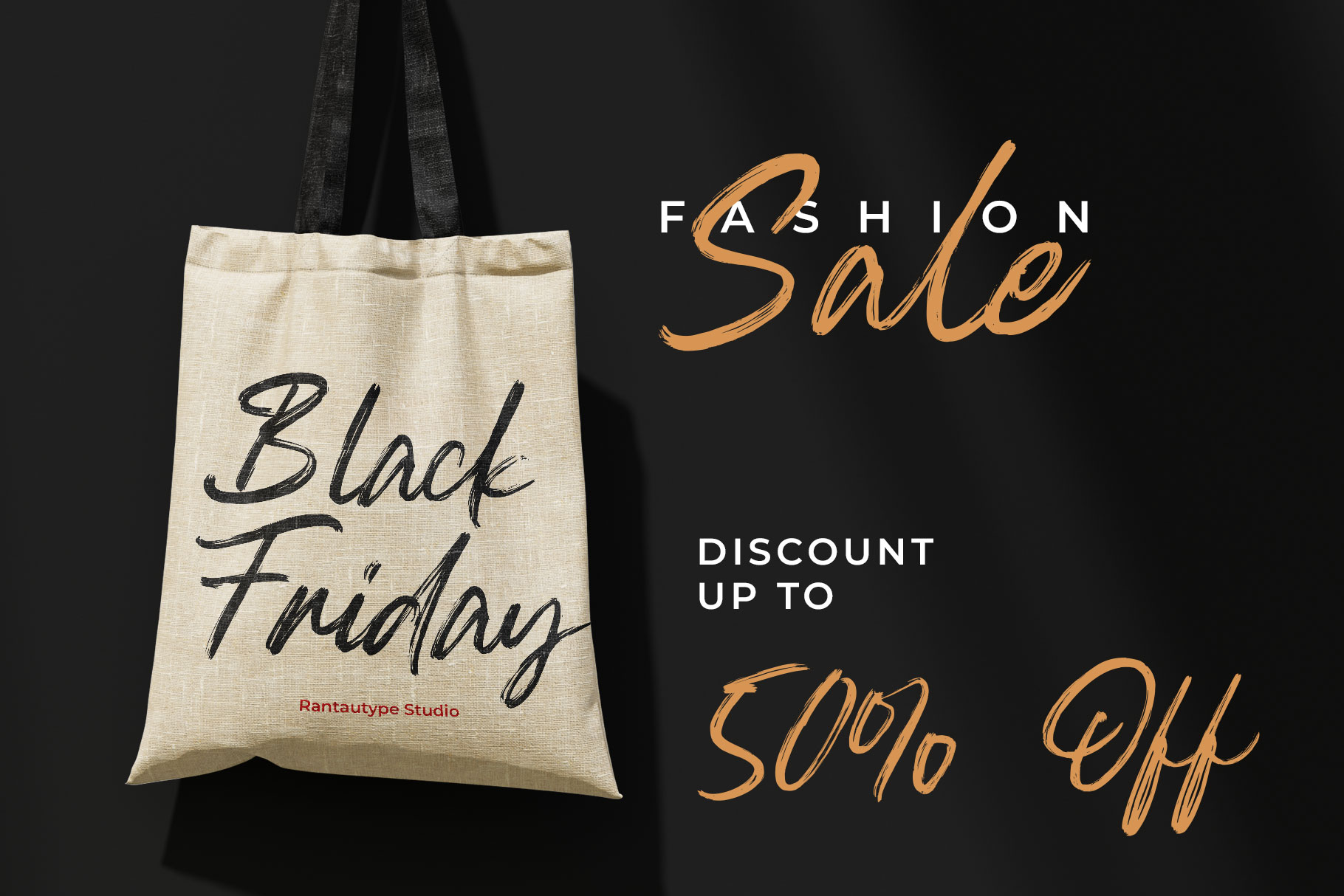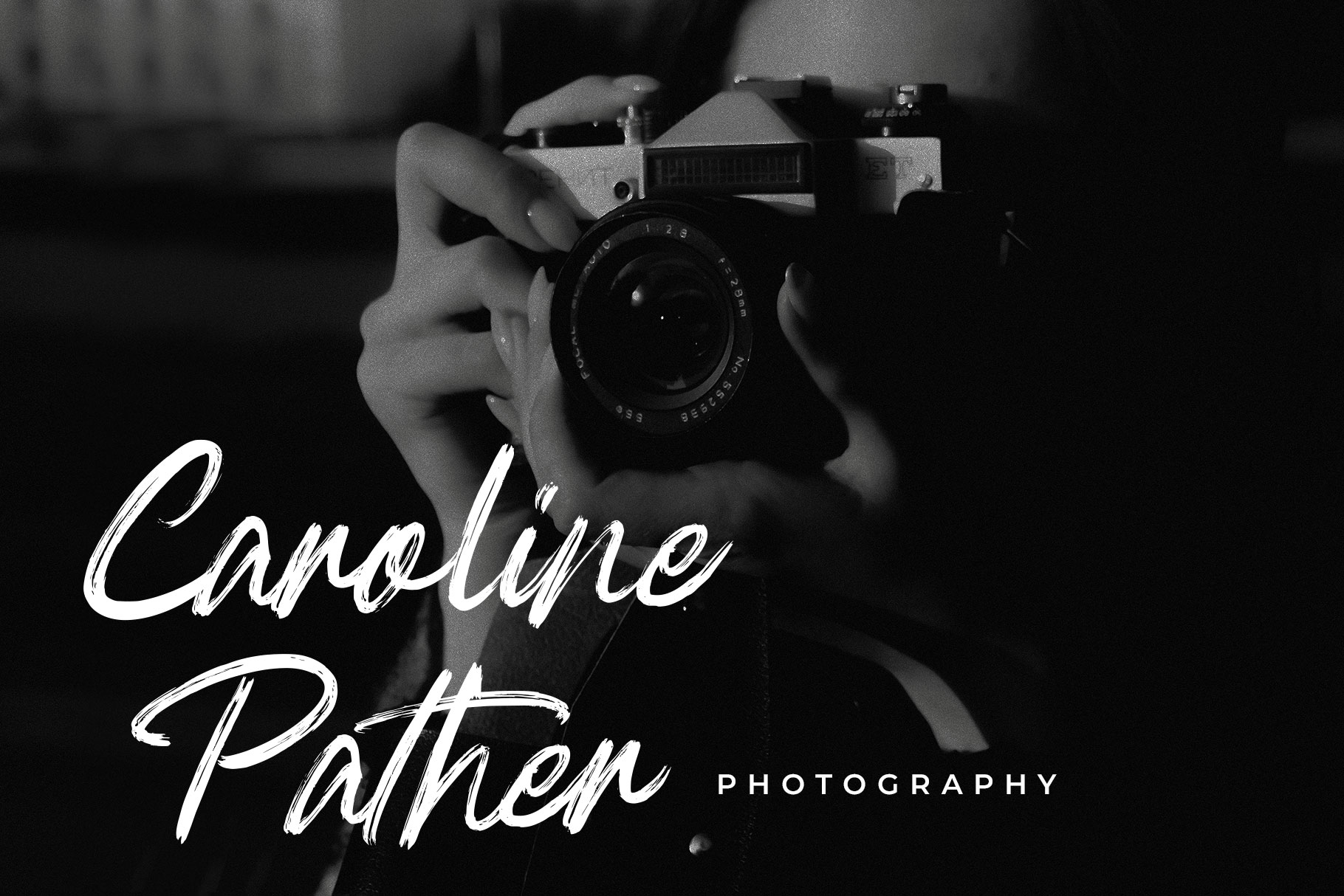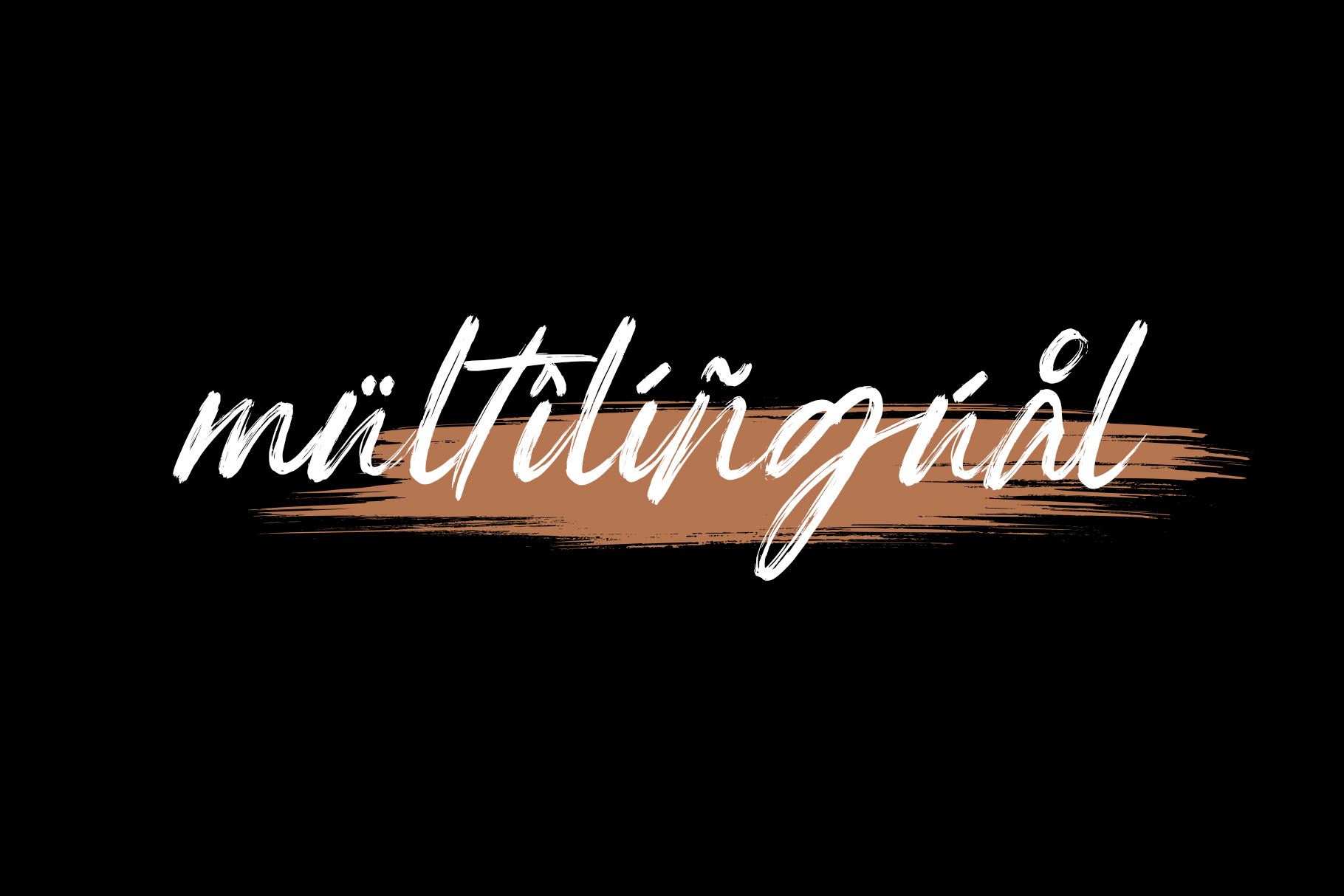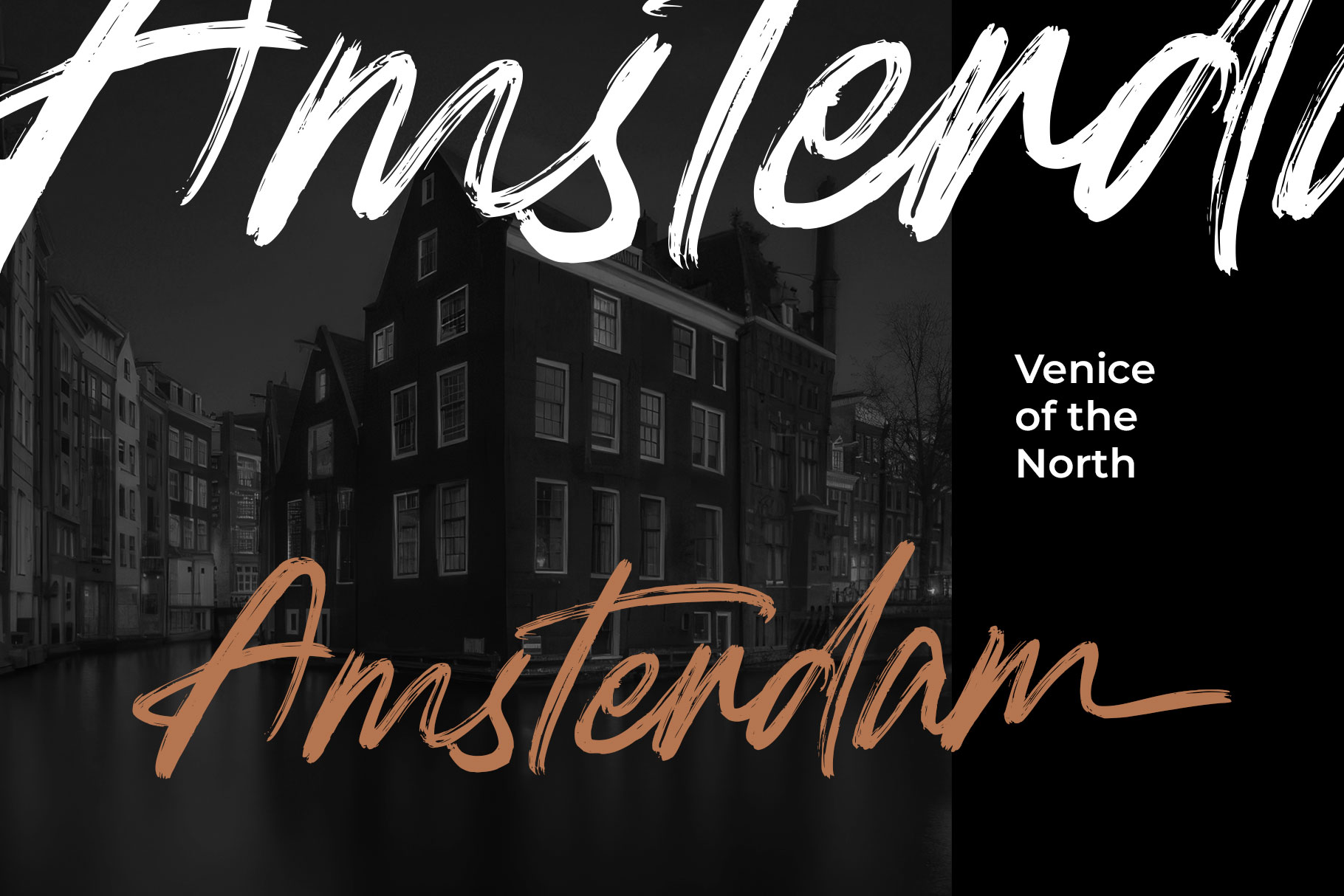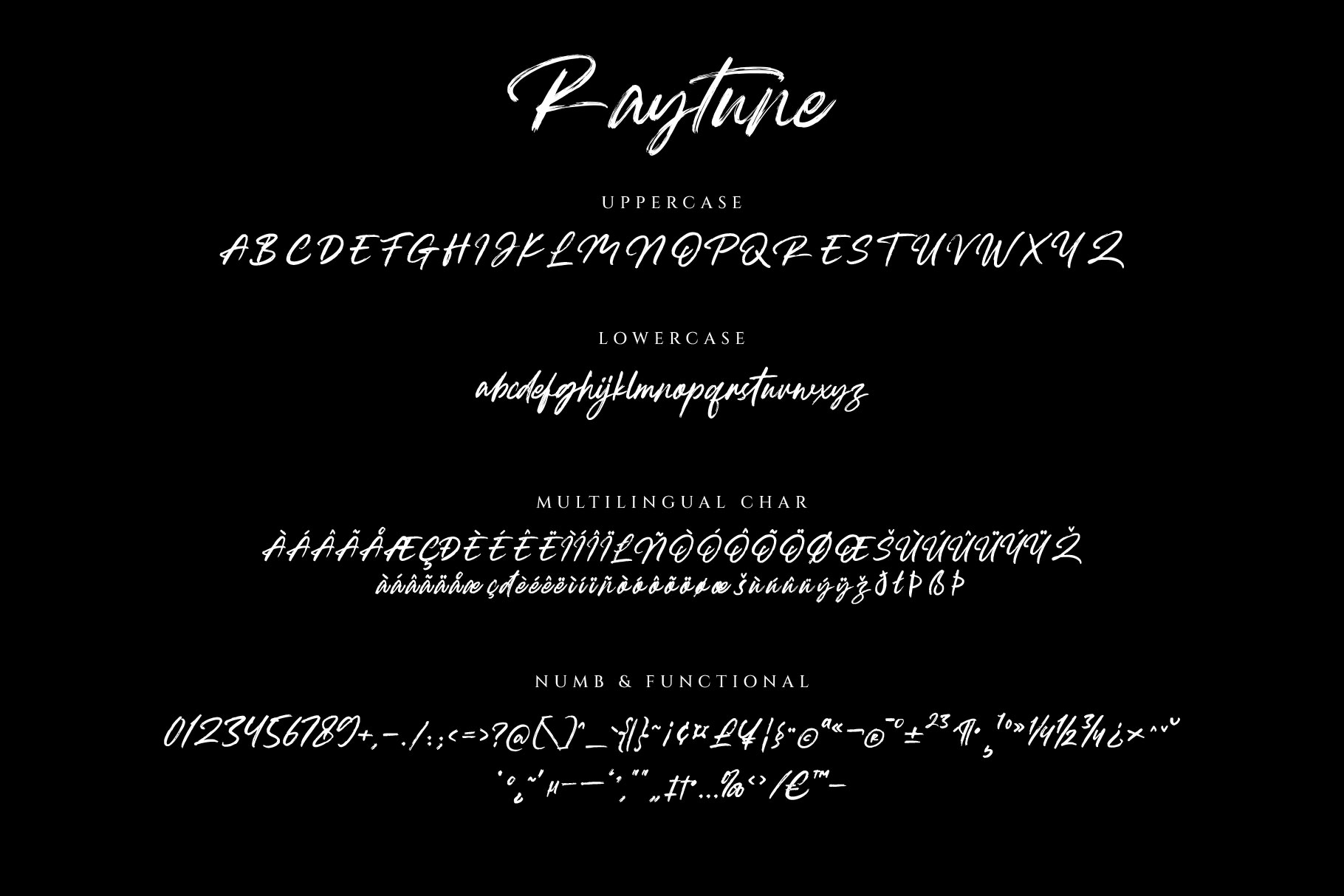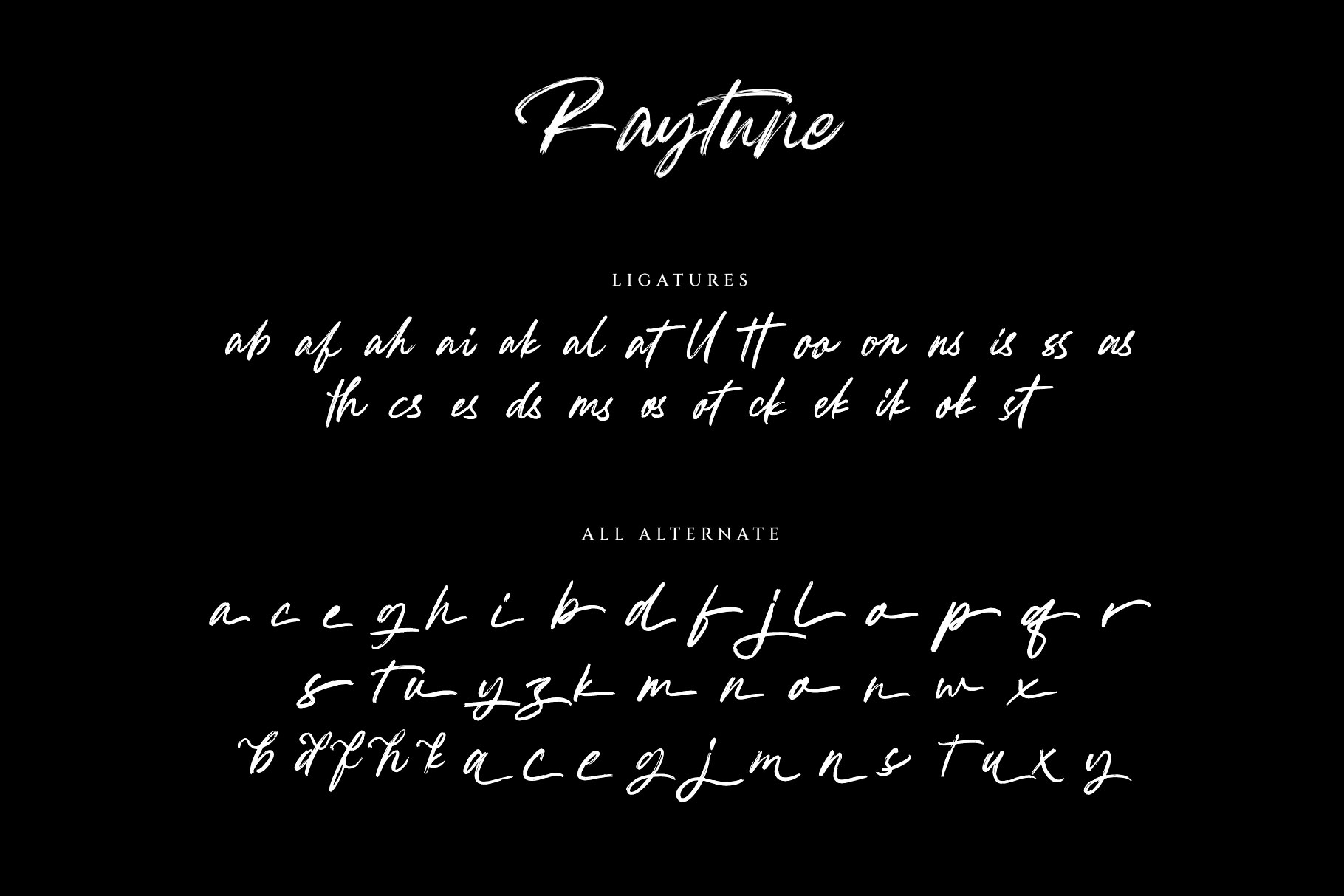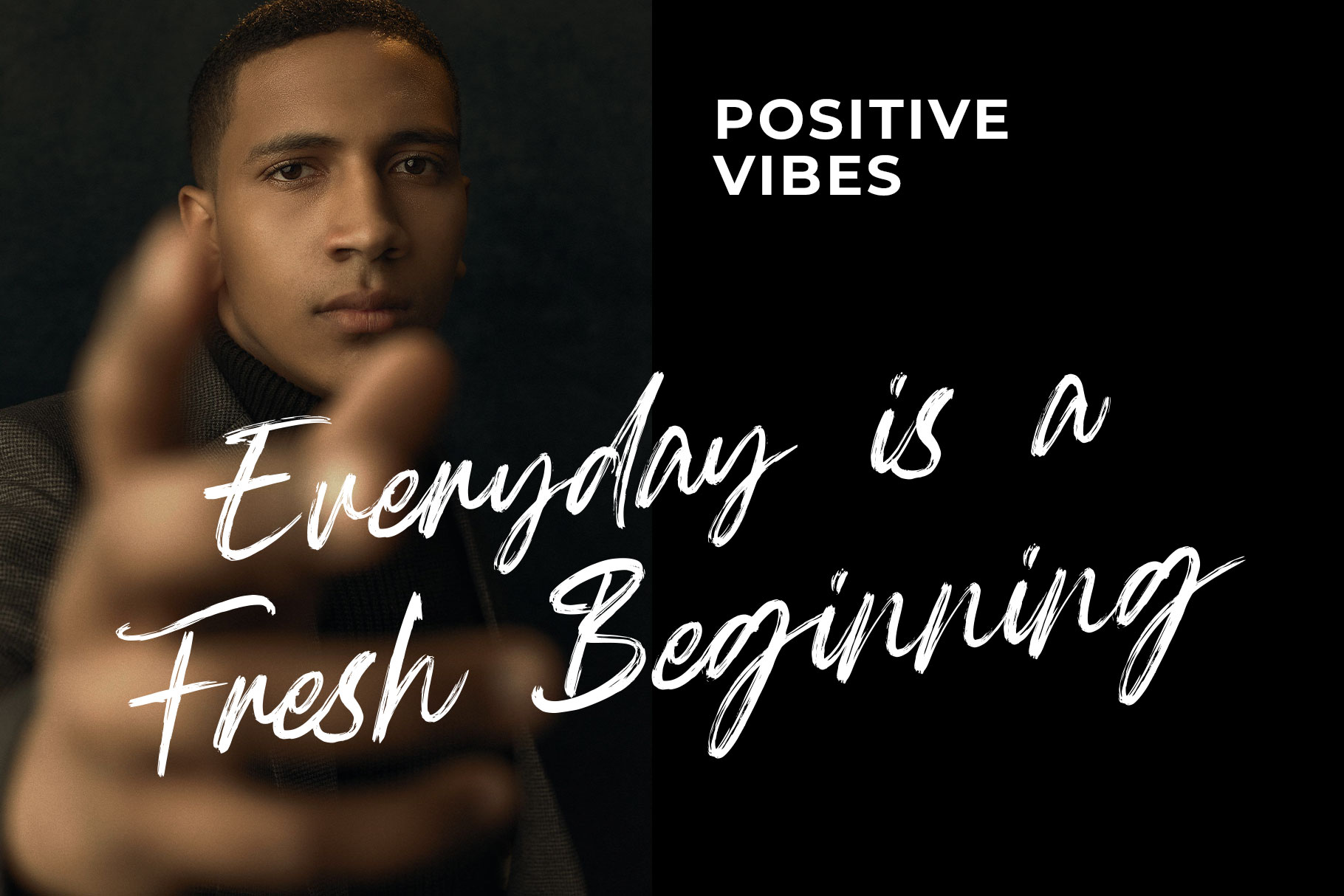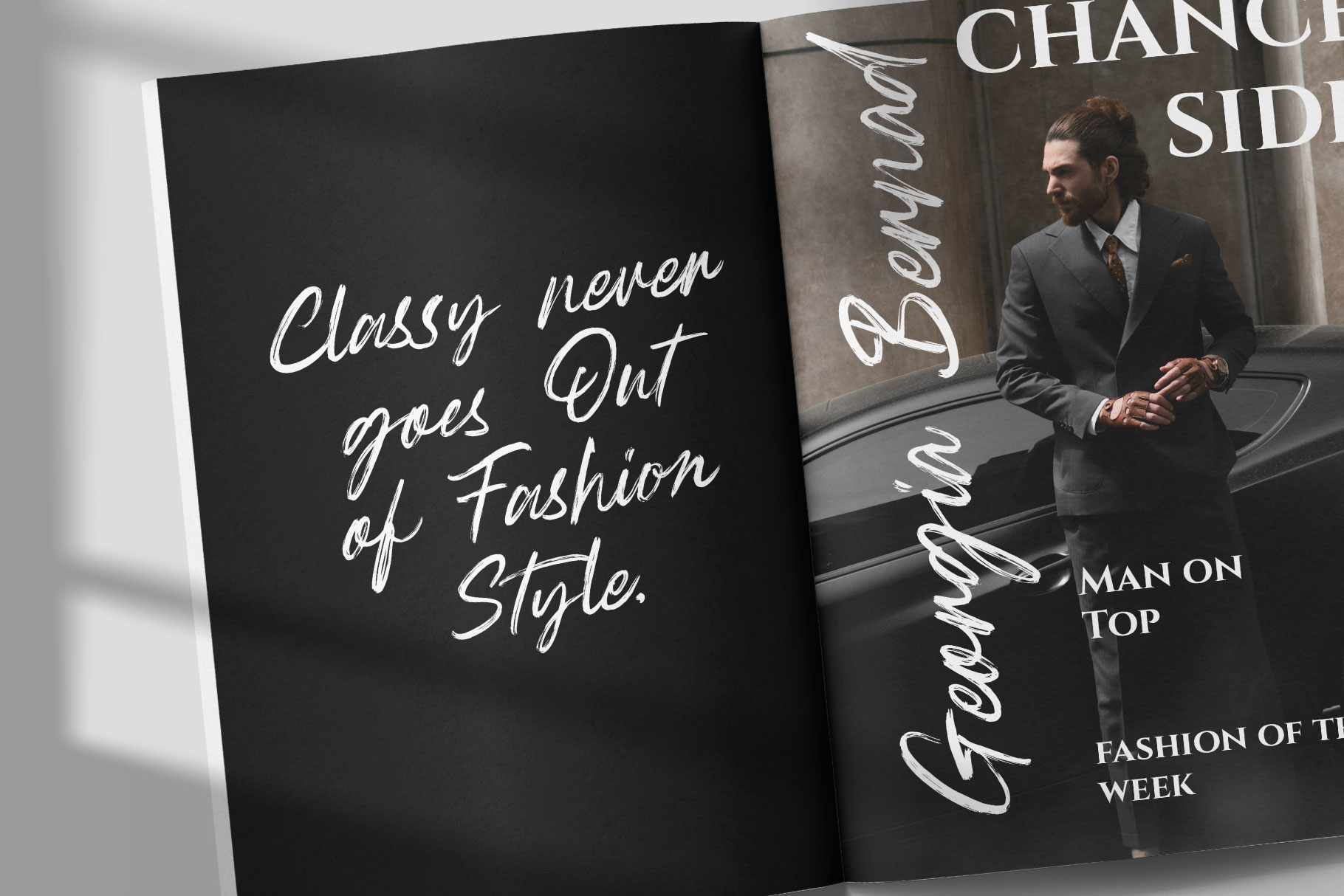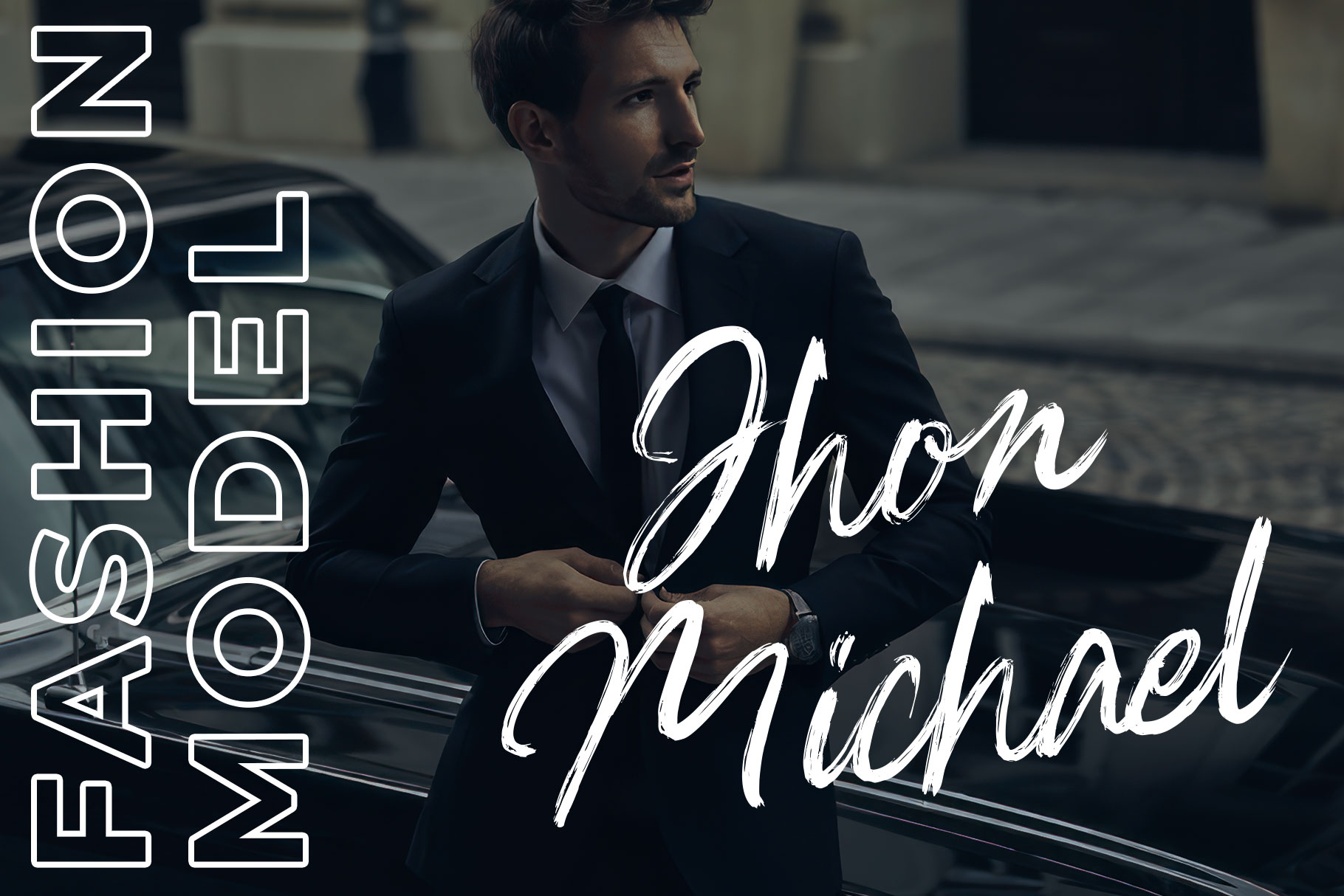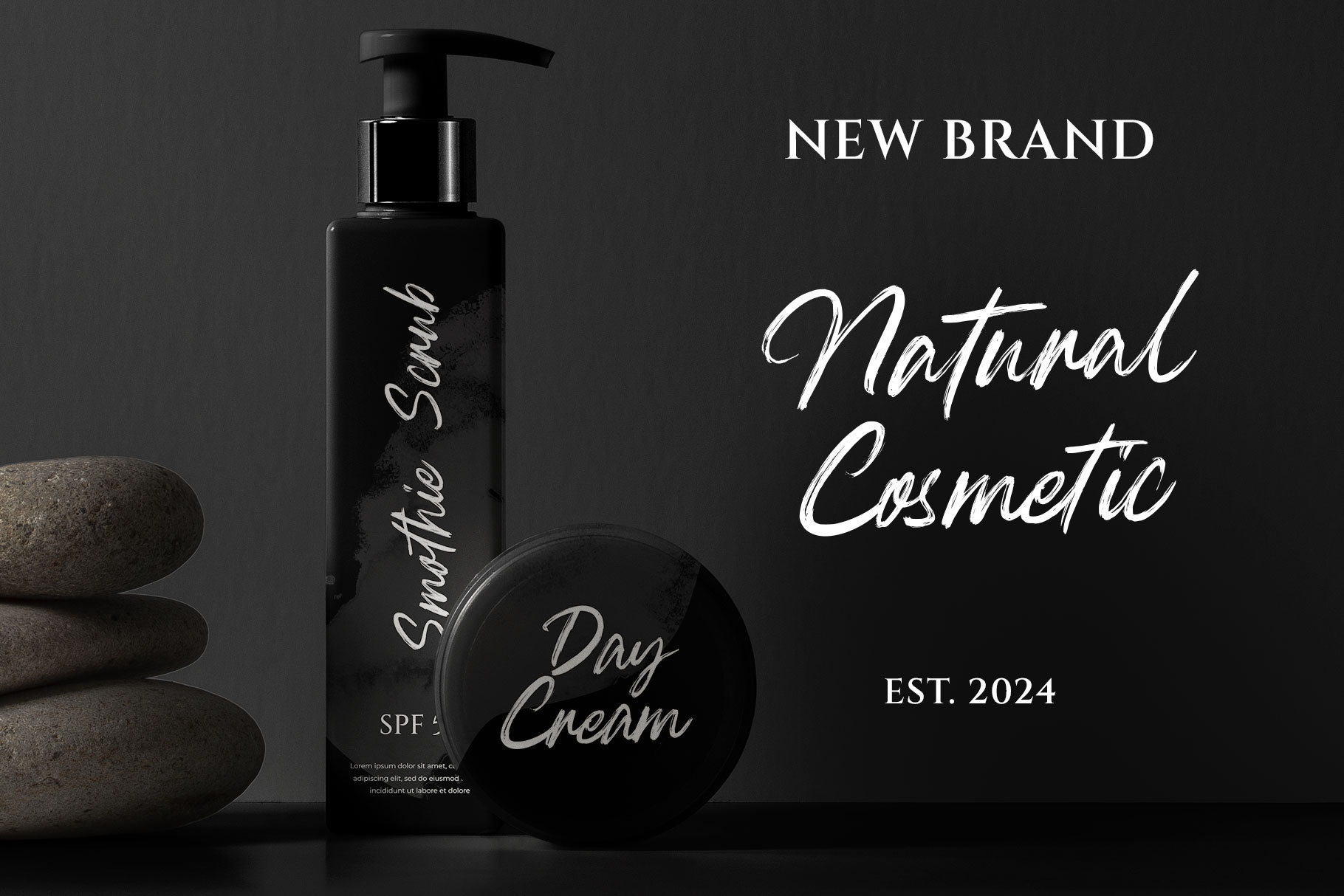
Raytune Signature Brush Typeface
Raytune is signature typeface with stylish scratches. Raytune come to making your design project impressive and your brand more stand out.
Raytune is a perfect choice for any creative endeavor, chic, lifestyle design such as logos, advertisements, watermark on photography, stationery, branding project, display and magazine, invitation, corporate brand, product design, label, business project and many other project need handwriting taste.